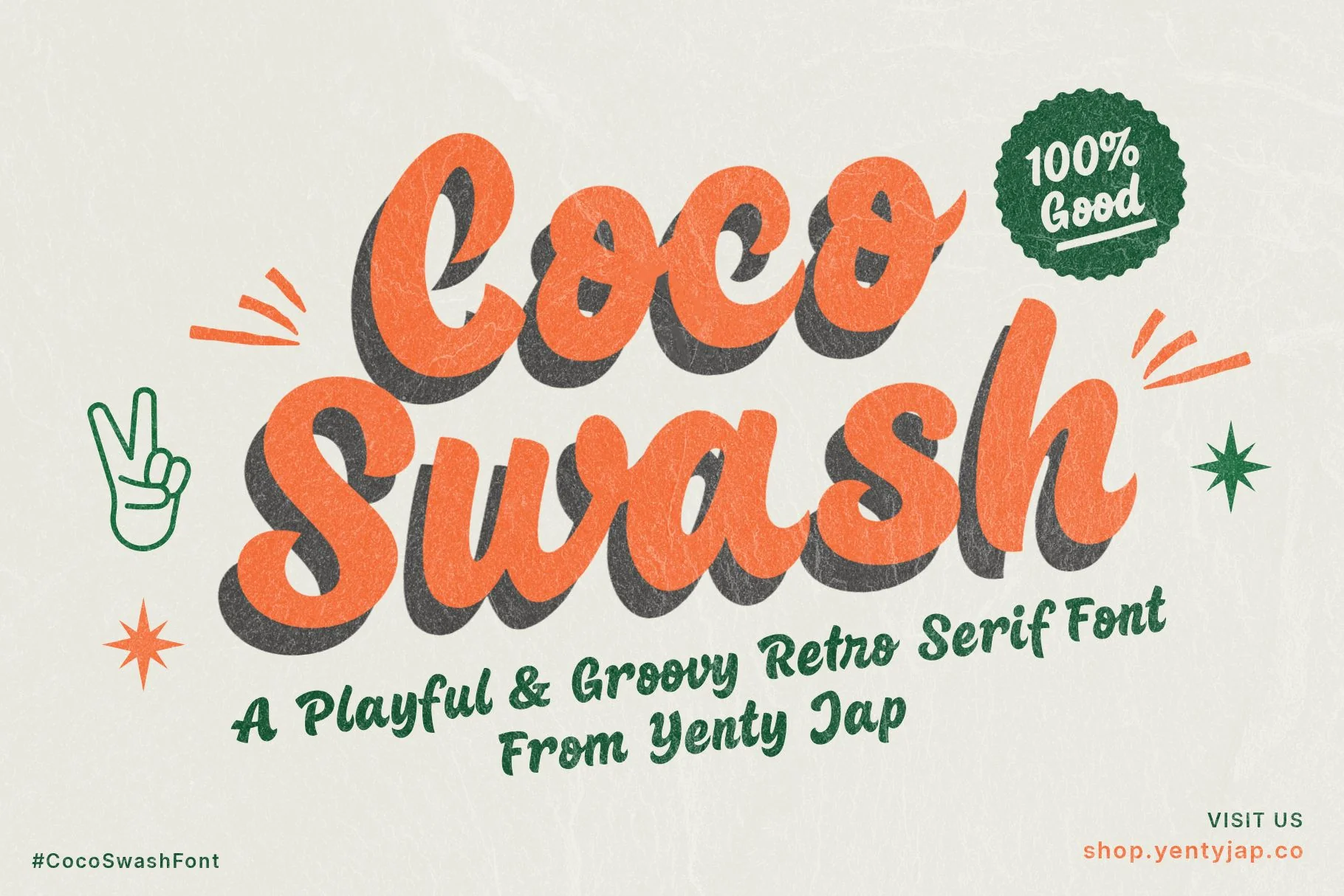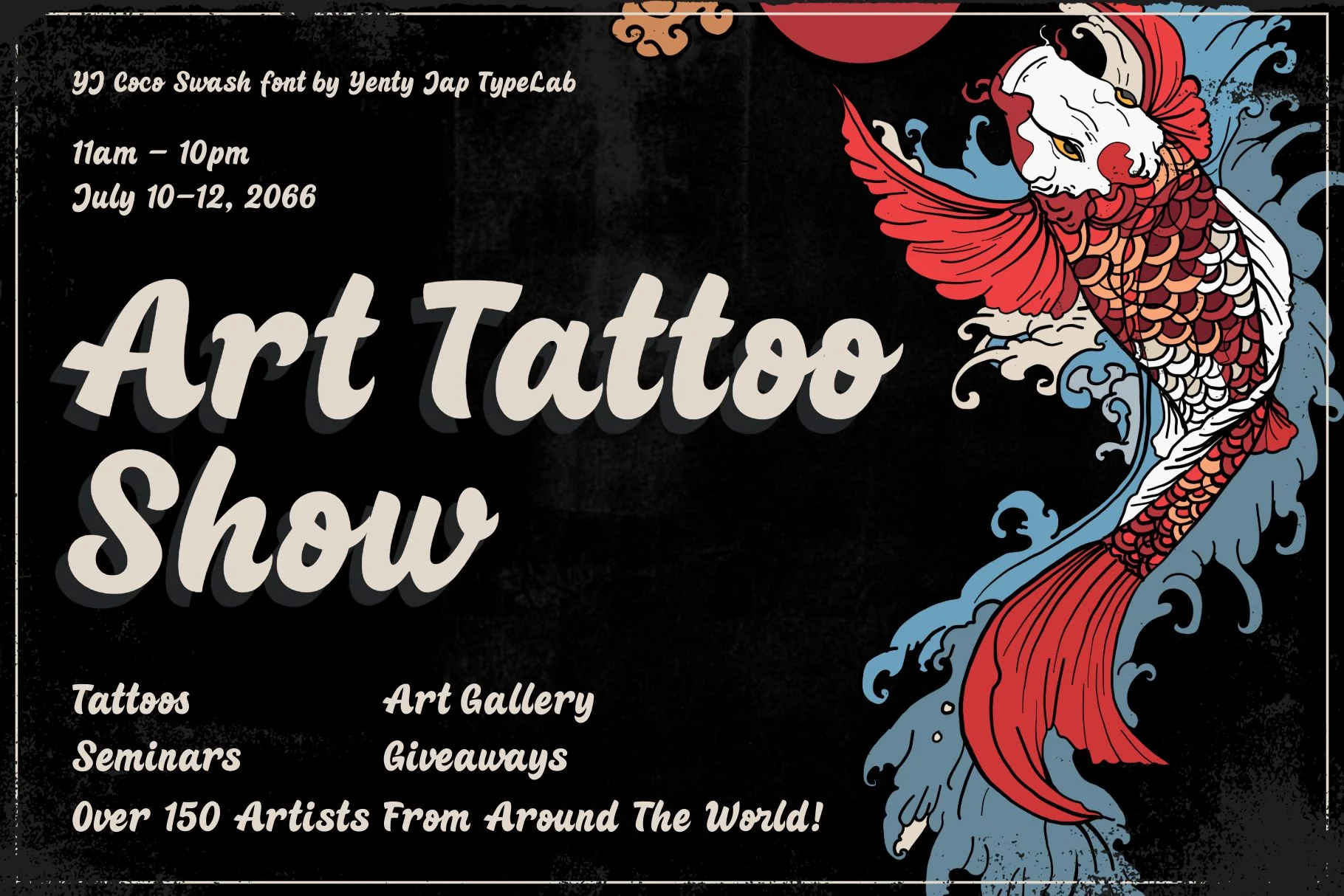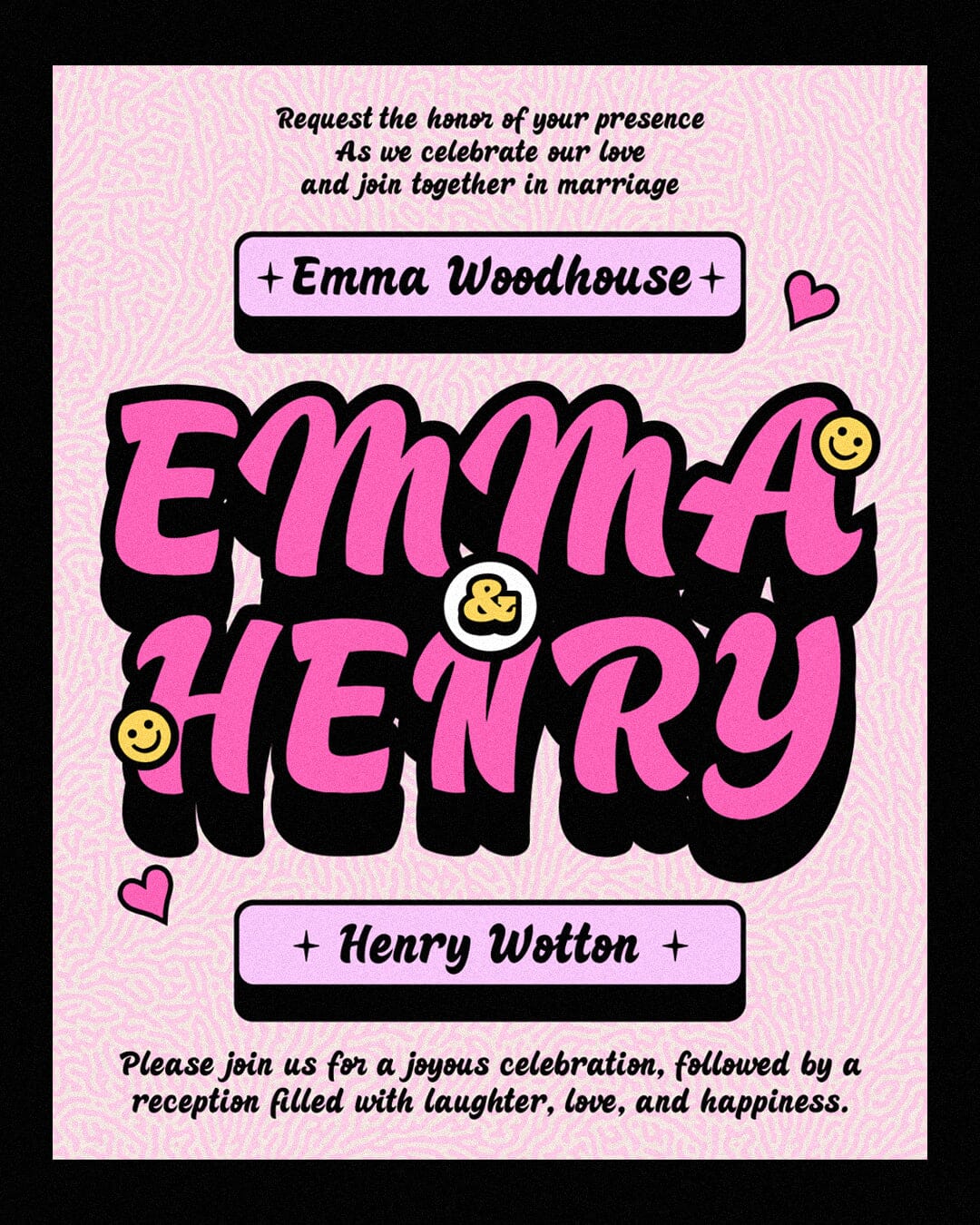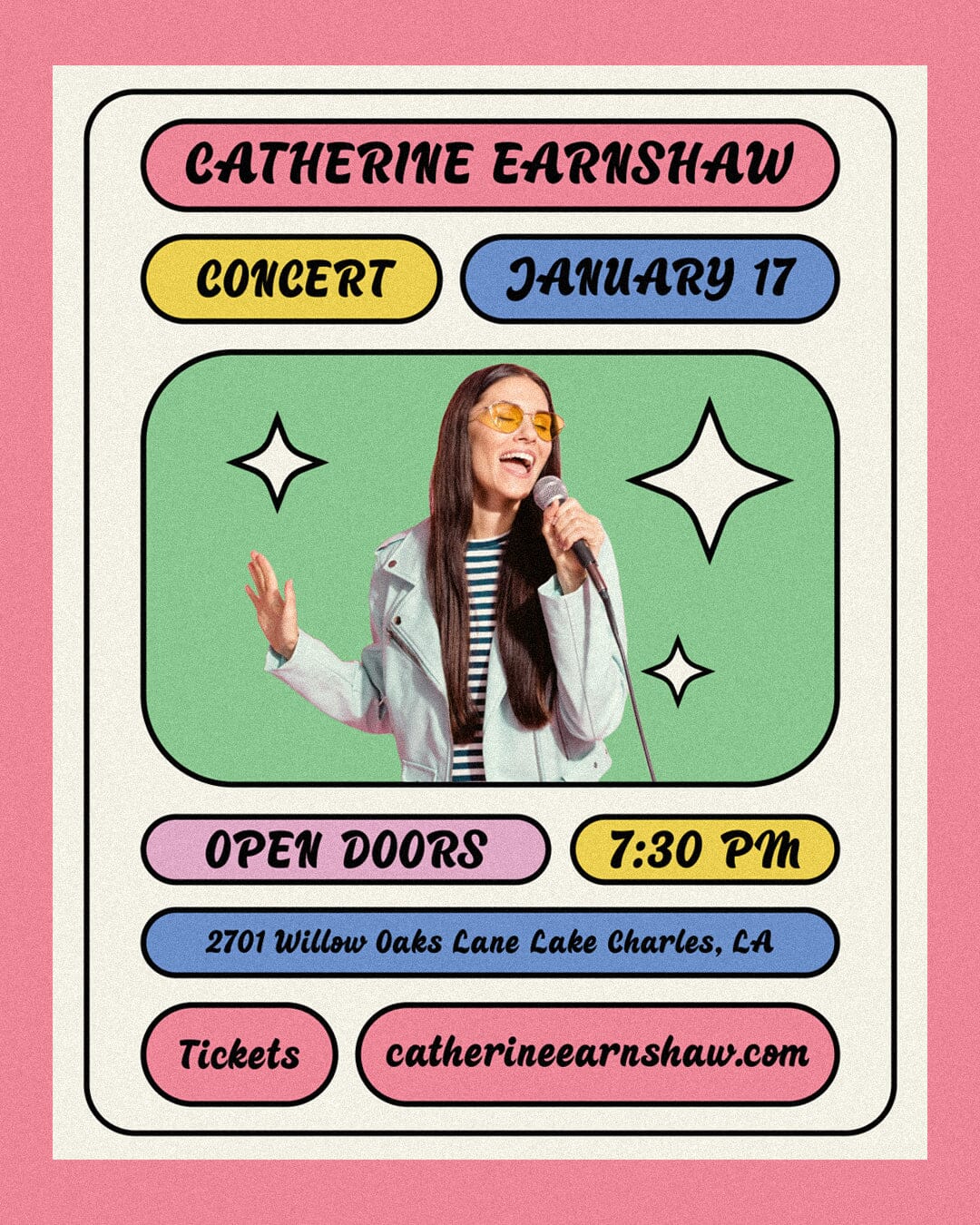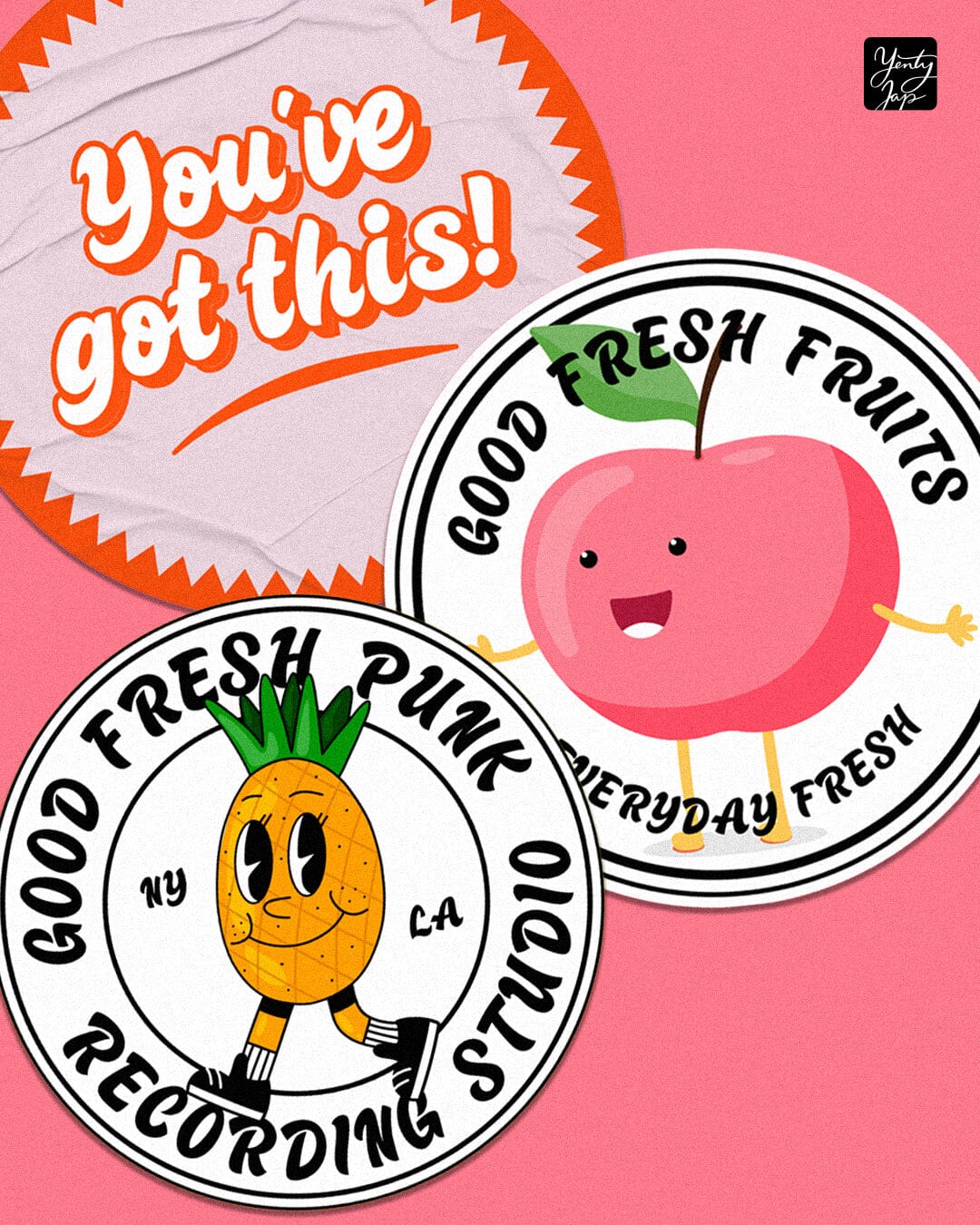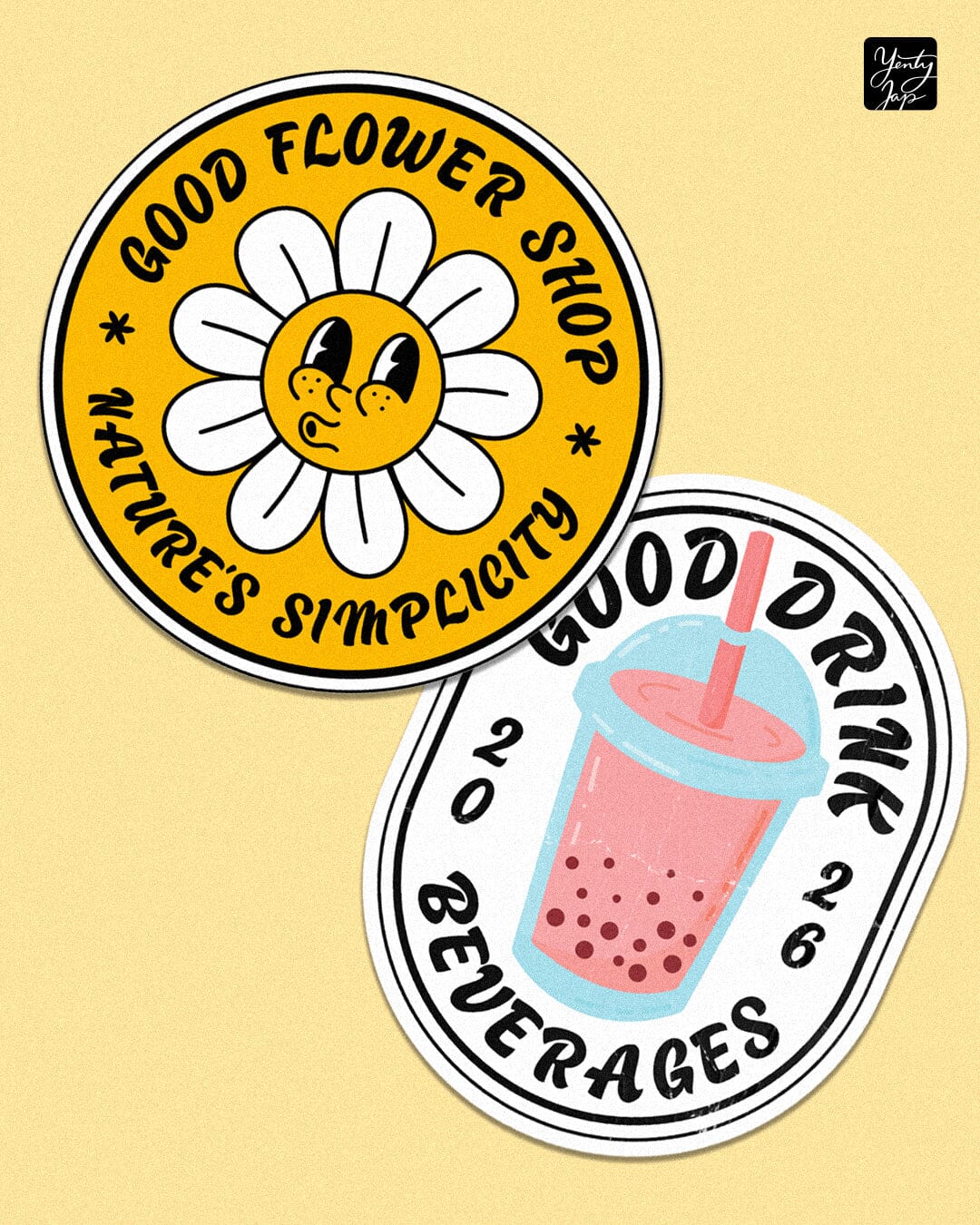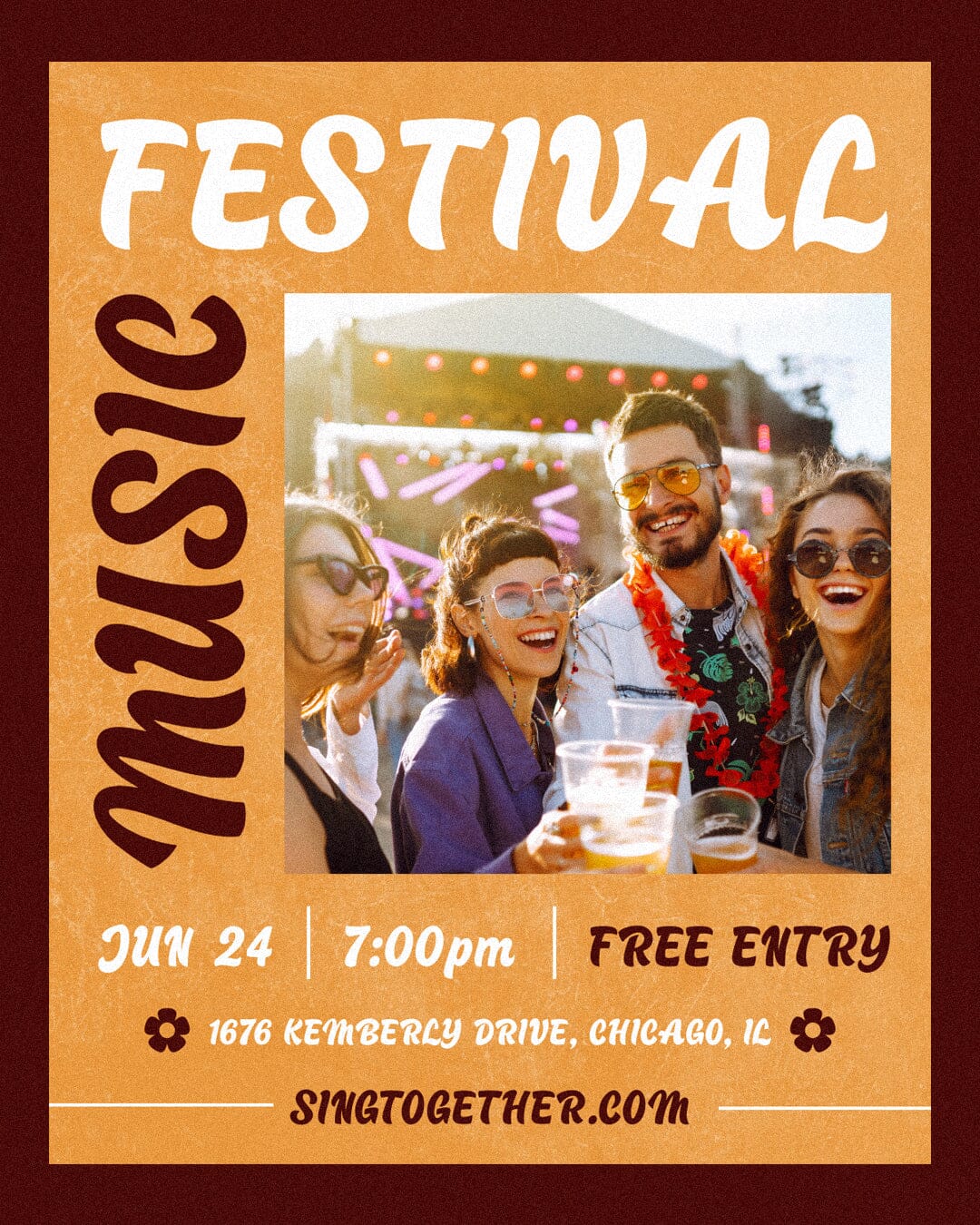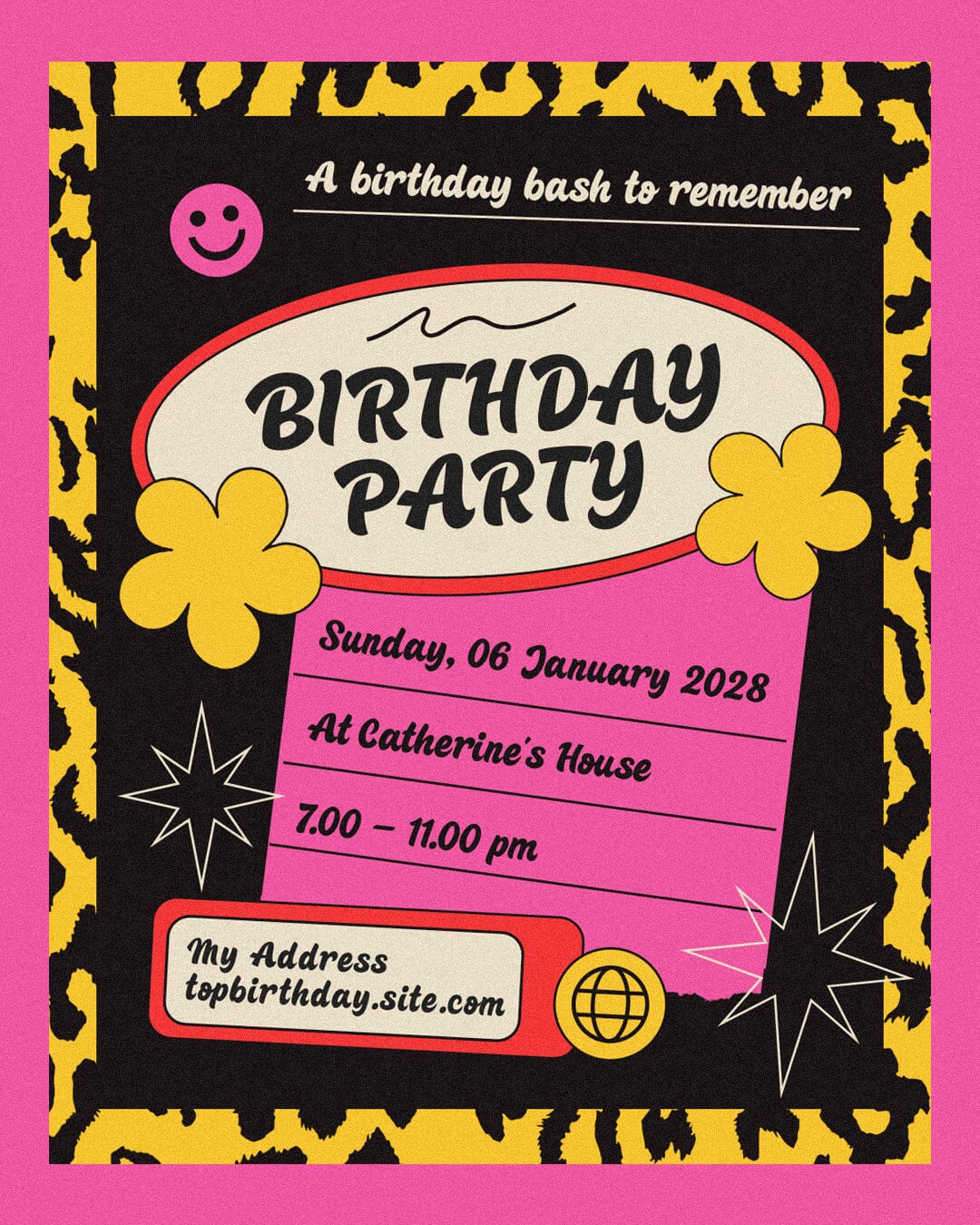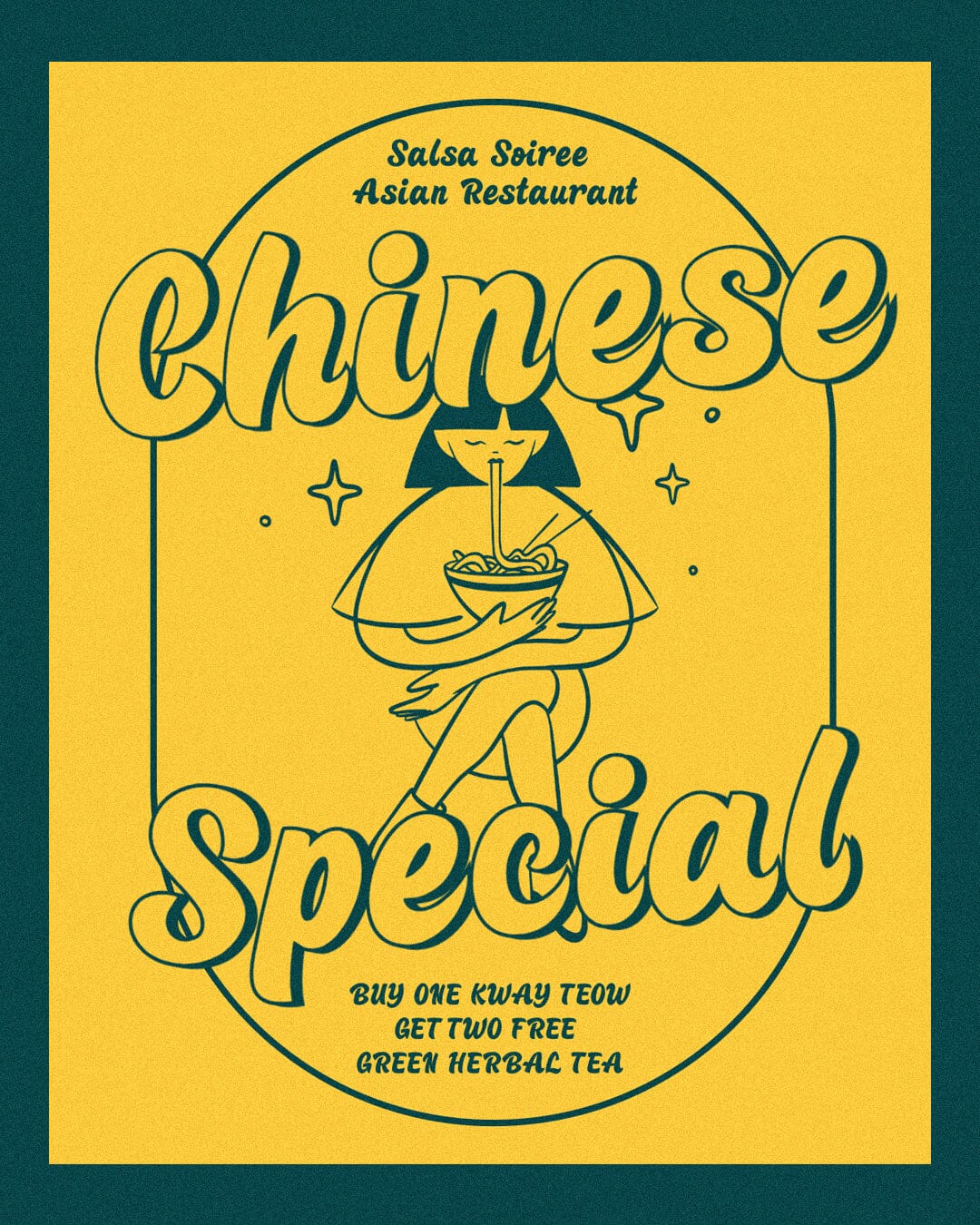
YJ Coco Swash: A Playful & Groovy Retro Serif Font
Say Hello to YJ Coco Swash! If your design needs a little pick-me-up, youāve come to the right place.Ā YJ Coco SwashĀ is that bold, chunky friend who always knows how to make you smile. Itās a retro-inspired serif that doesnāt take itself too seriouslyāitās here to have fun, tell the truth, and look good doing it.
With its curvy swashes and heavy contrast, this font feels like a warm hug from the 70s, but with a clean, modern twist that keeps it fresh. Itās perfect for when you need your words to feel sincere but playful.
Where does YJ Coco Swash shine?Ā It loves being the center of attention! Use it for:
- Big, bold headersĀ that need to pop (without shouting).
- Sticker packsĀ andĀ digital plannersĀ that need a groovy vibe.
- Branding & LogosĀ that want to feel approachable and witty.
- Social media quotesĀ that feel like a friendly advice session.
- InvitationsĀ that promise a good time.